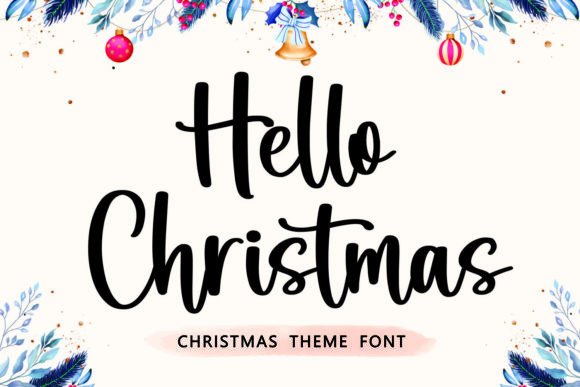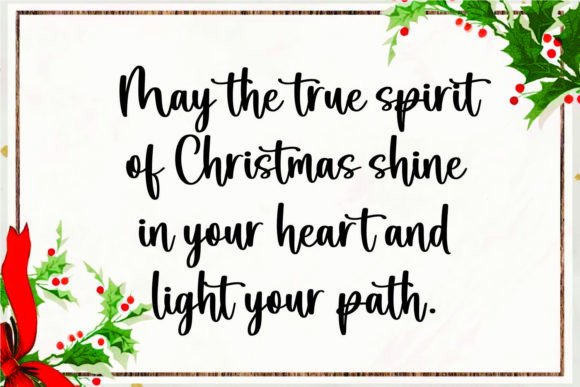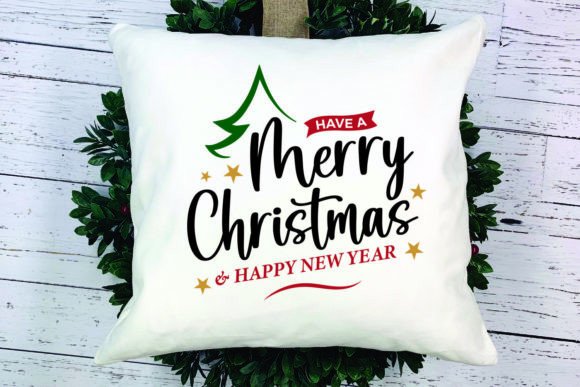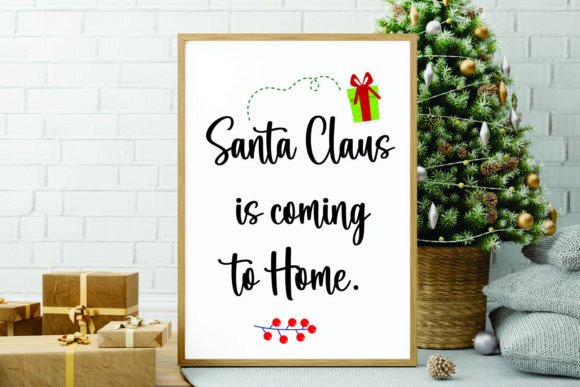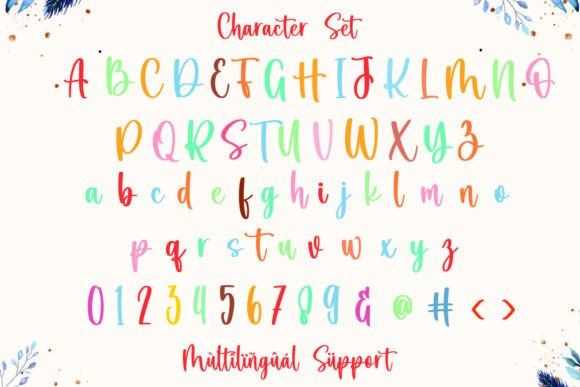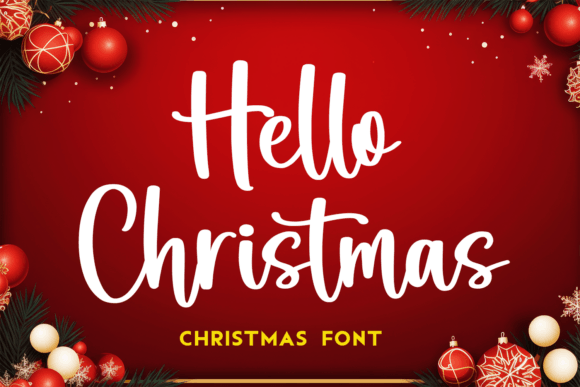
Introducing Hello Christmas Font: The Ultimate Holiday Companion for Designers and Crafters
It’s the most wonderful time of the year! As the holiday season approaches, designers and crafters are on the lookout for the perfect font to add a touch of festive magic to their creations. Look no further than the “Hello Christmas” font, a delightful script handwritten font that embodies the spirit of Christmas and brings joy to life.
A Winter Wonderland in a Font
Imagine a font that transports you to a winter wonderland filled with cosiness, warmth, and celebration. The “Hello Christmas” font does just that, with its charming handcrafted letterforms that evoke feelings of nostalgia and festivity. This enchanting font is perfect for infusing your craft projects, Christmas cards, New Year’s designs, and winter-themed creations with a touch of elegance and whimsy.
Unleash Your Creativity with Hello Christmas
Whether you’re a designer, crafter, or DIY enthusiast, the “Hello Christmas” font is the perfect companion for your holiday projects. Use it to create:
- Personalized Christmas cards that will make your loved ones feel special
- Festive holiday-themed decorations that will make your home shine
- Whimsical winter-themed crafts that will delight kids and adults alike
- Invitations to holiday parties that will set the tone for a joyful celebration
What Makes Hello Christmas Font So Special?
The “Hello Christmas” font is more than just a font – it’s an experience. Its playful curves and flowing strokes bring a sense of handmade charm to your designs, making every creation feel like a heartfelt gift. With this font, you’ll be able to:
- Add a touch of elegance and sophistication to your designs
- Create unique and eye-catching projects that stand out from the crowd
- Evoke feelings of joy and warmth in your audience
- Bring a sense of personality and whimsy to your creations
Why Choose Hello Christmas Font?
In a world where designs can easily blend in with the crowd, the “Hello Christmas” font offers a refreshing change of pace. Here are just a few reasons why you should choose this font for your holiday projects:
- Unique and exclusive: The “Hello Christmas” font is a one-of-a-kind creation that will make your designs stand out
- Festive and fun: The “Hello Christmas” font embodies the spirit of the holiday season, making it perfect for Christmas, New Year’s, and winter-themed designs
- High-quality: This font is crafted with love and care, ensuring that it looks great in any design
Get Ready to Make Your Designs Merry and Bright!
Don’t let your designs blend in with the crowd this December. Stand out with the enchanting “Hello Christmas” font, perfect for adding a touch of handmade charm to your projects. With its charming handcrafted letterforms and whimsical feel, this font is sure to bring joy and magic to your creations.
The “Hello Christmas” font is a must-have for designers and crafters who want to add a touch of festive elegance to their holiday projects. With its unique and exclusive design, ease of use, and high-quality craftsmanship, this font is sure to become your go-to companion for all your holiday design needs. So why wait? Get your hands on the “Hello Christmas” font today and make your designs merry and bright!